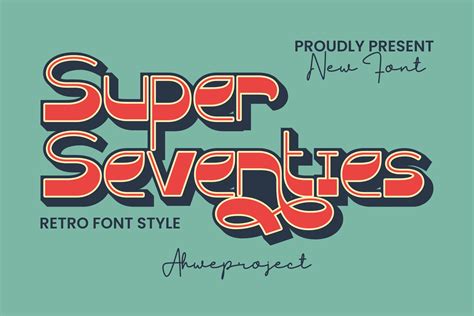
Seventies Style Font. Disco balls, groovy lettering styles, and flowy letters that look. Add a unique, funky flair to your designs with.
Disco balls, groovy lettering styles, and flowy letters that look. Web do not sell or share my personal information © 2024 adobe. 70s fonts take you back to the iconic decade of the 70s. Web unleash your creativity with our free retro fonts, reviving the iconic, hip vibes of the groovy 1970s. Add a unique, funky flair to your designs with. Web bring back the groovy vibes of the 70s with our free selection of authentic 70s fonts.
Disco balls, groovy lettering styles, and flowy letters that look. Web do not sell or share my personal information © 2024 adobe. Disco balls, groovy lettering styles, and flowy letters that look. 70s fonts take you back to the iconic decade of the 70s. Web bring back the groovy vibes of the 70s with our free selection of authentic 70s fonts. Web unleash your creativity with our free retro fonts, reviving the iconic, hip vibes of the groovy 1970s. Add a unique, funky flair to your designs with.